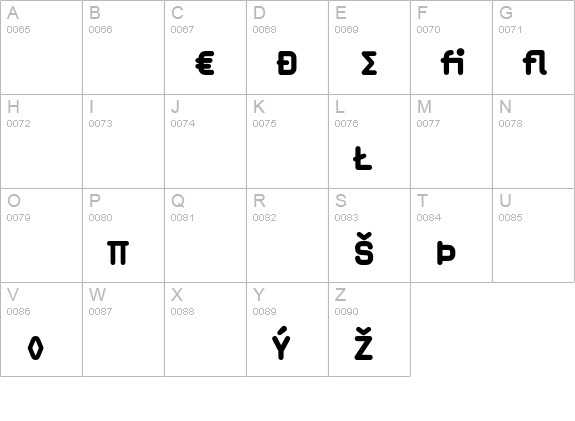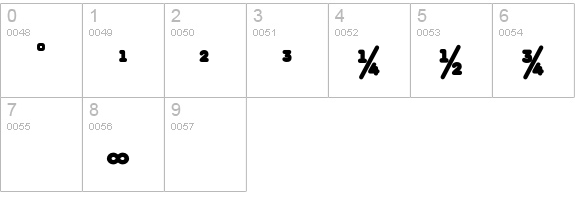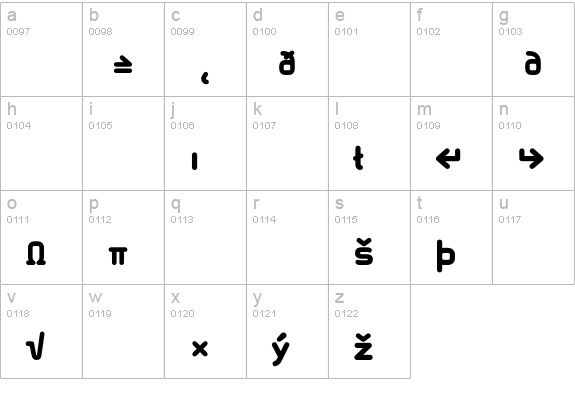
MagdaClean-BlackExpert Font Details
Introducing MagdaClean-BlackExpert, a stunningly bold and sophisticated font that demands attention with its sleek lines and powerful presence. This remarkable typeface exudes confidence, making it perfect for creating impactful designs that leave a lasting impression. MagdaClean-BlackExpert is meticulously crafted with precision and attention to detail, resulting in a font that is both visually striking and easy to read. Its clean and modern aesthetic is enhanced by its black weight, making it ideal for headlines, titles, and any design that requires a strong and commanding visual element. But what sets MagdaClean-BlackExpert apart is not just its impeccable design, but also its accessibility. Unlike many premium fonts on the market, MagdaClean-BlackExpert is freely available to download at FontsMarket.com. This means that you can add this remarkable typeface to your design arsenal without breaking the bank. Whether you're a graphic designer, a web developer, or simply a font enthusiast, MagdaClean-BlackExpert is a valuable addition to your collection. With its bold and impactful presence, MagdaClean-BlackExpert is sure to elevate any design project, whether it's a logo, a poster, a website, or a branding campaign. Embrace the power of this exceptional font and watch as your designs come to life with a touch of sophistication and elegance. Download MagdaClean-BlackExpert today from FontsMarket.com and unlock the limitless possibilities it offers.